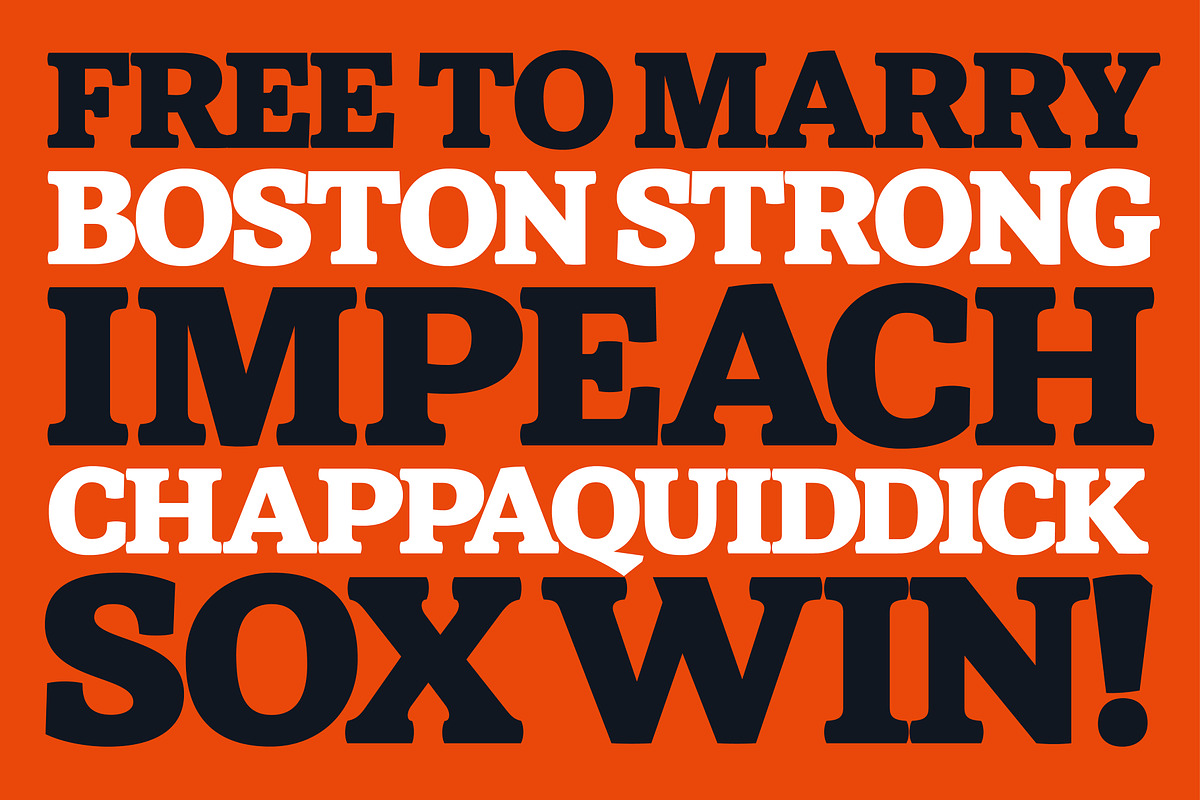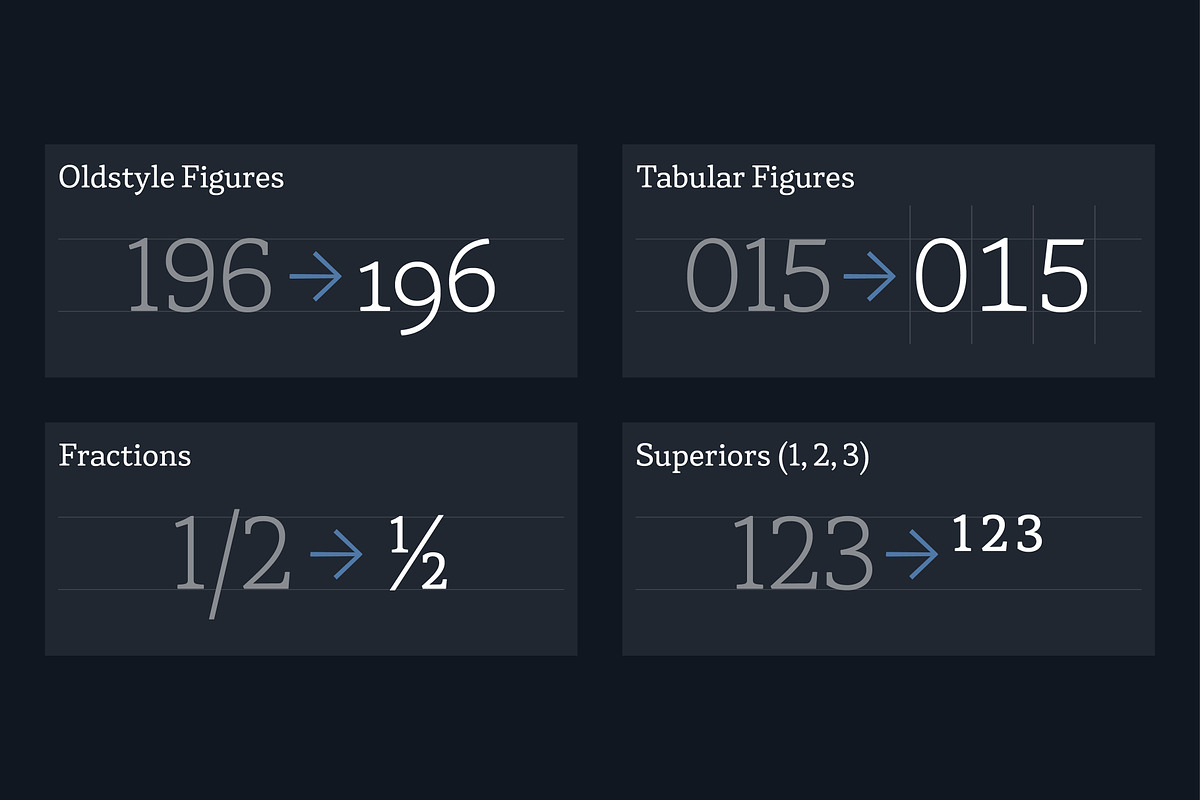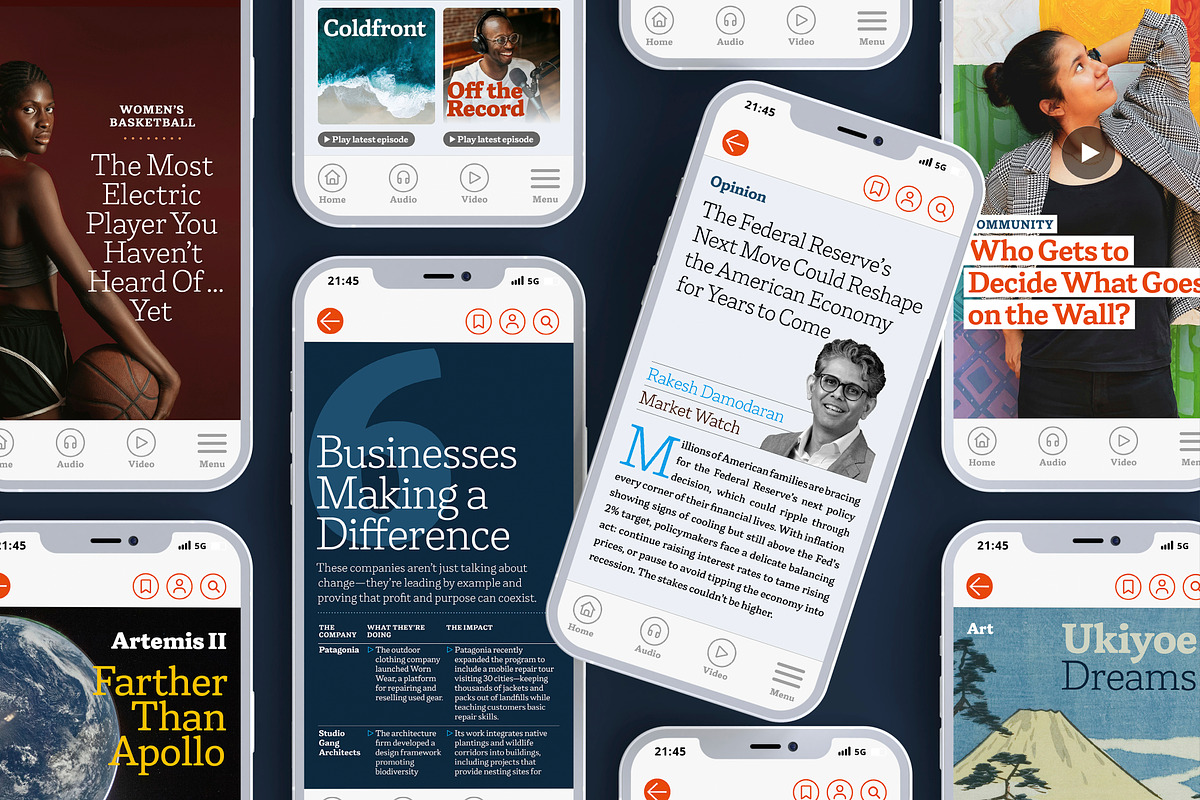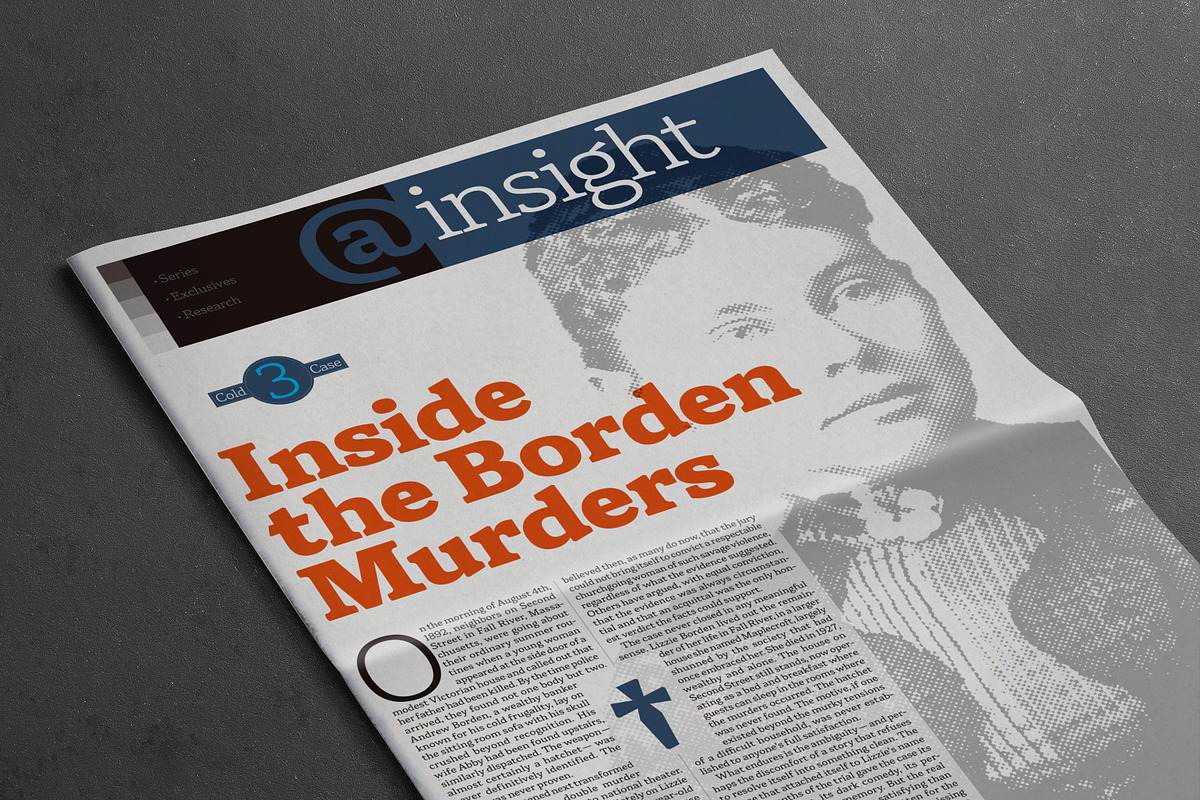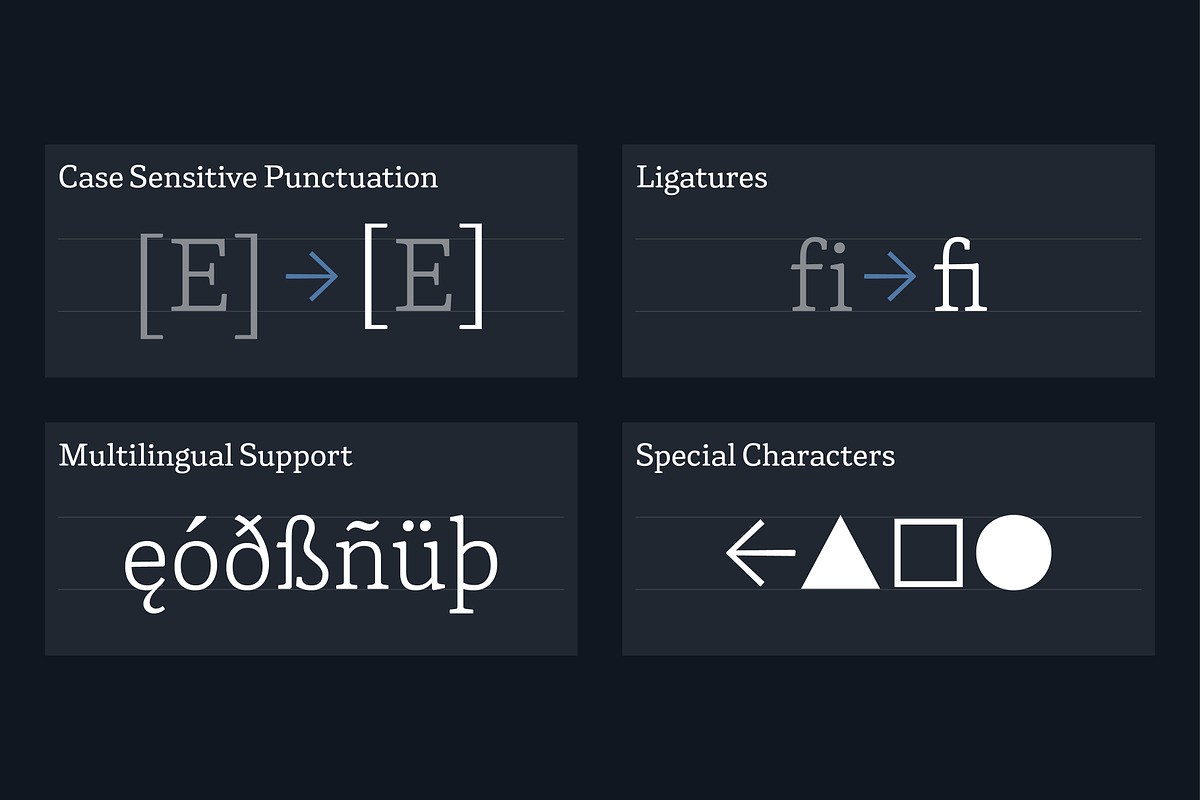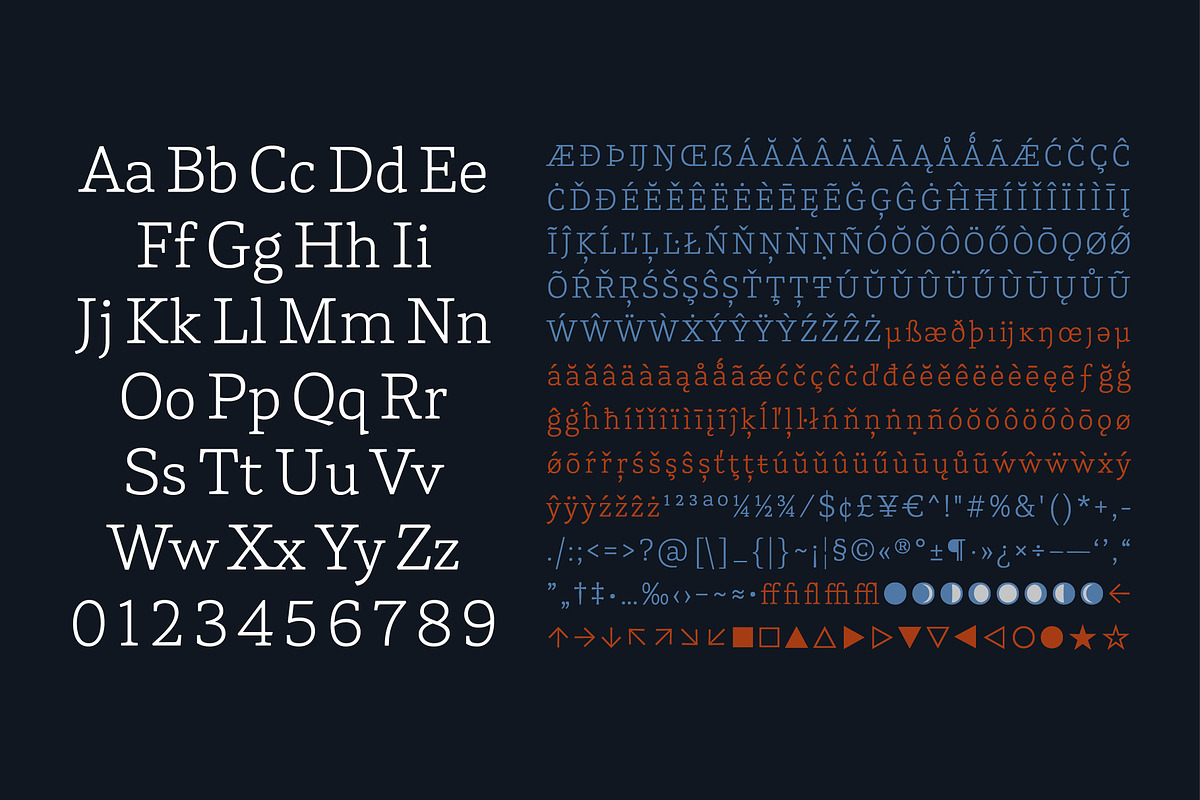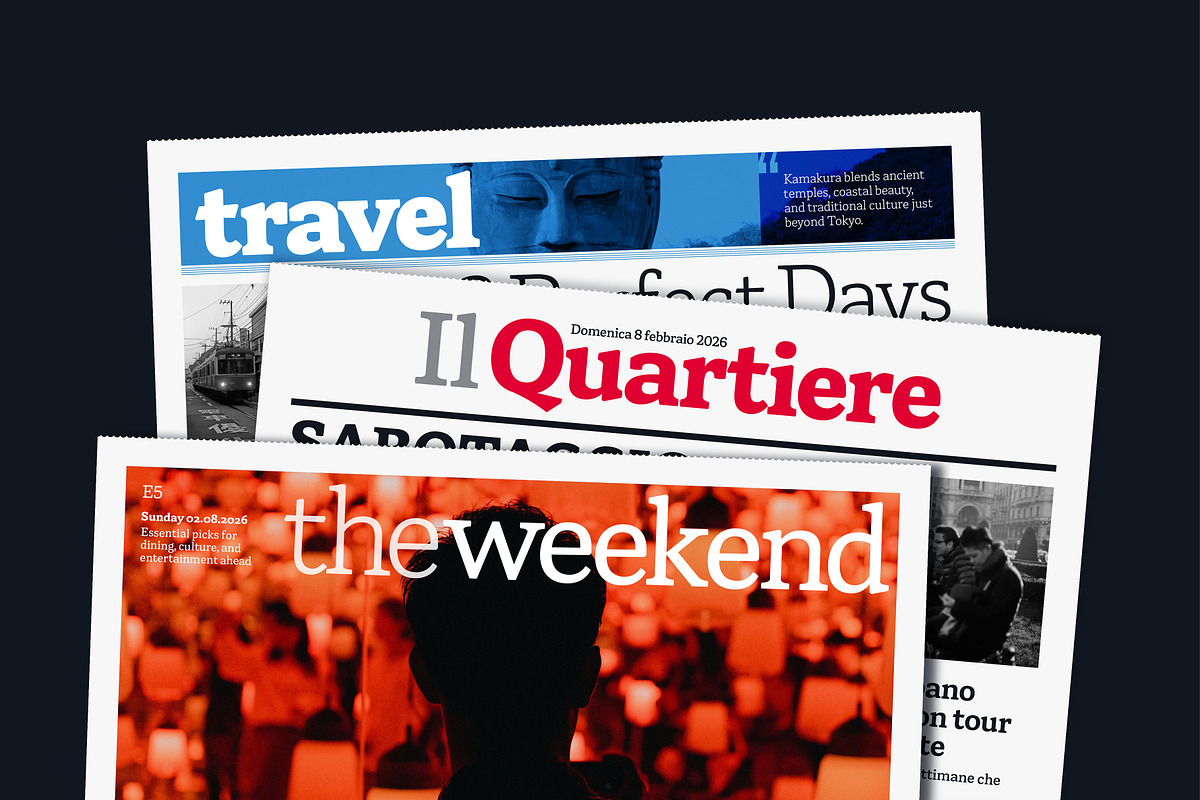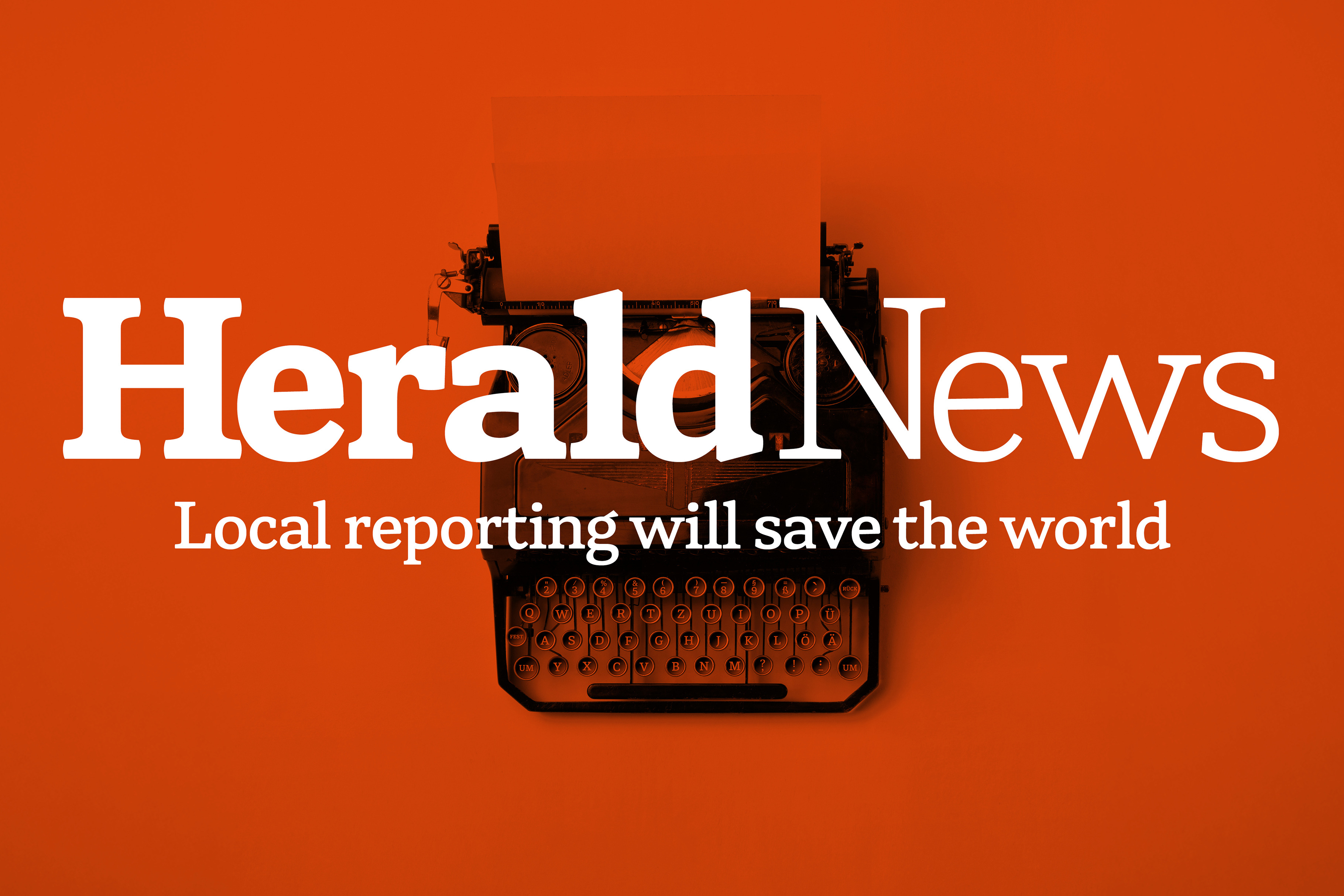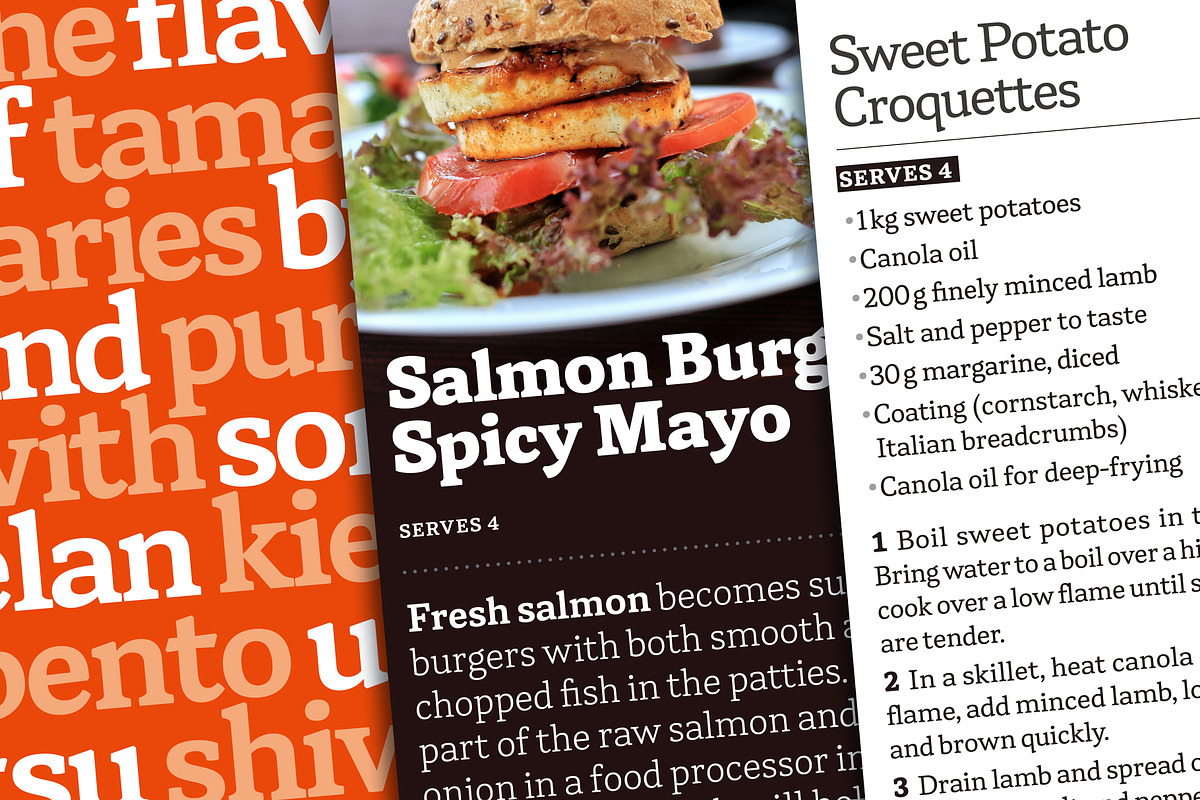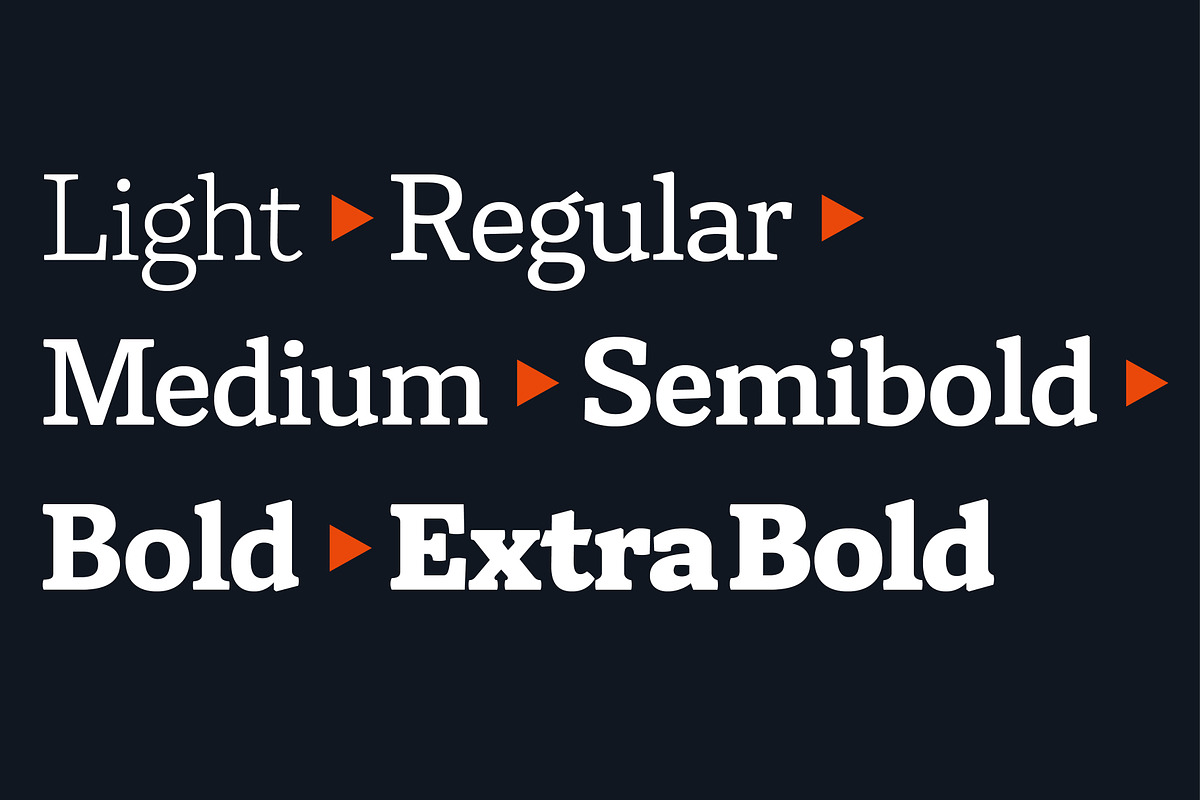
Herald News — Editorial Font
Inspired by local journalism, Herald News is a versatile serif text family crafted for editorial work. It strikes a balance between a serious tone suitable for hard-hitting stories and a warm feel for those that bring a smile.
The low-contrast design, featuring prominent serifs and rounded terminals, ensures excellent readability at small sizes while maintaining a commanding presence at display sizes. With six weights ranging from Light to Extra Bold, Herald News transitions seamlessly from body copy to striking front-page headlines.
This font family is equipped to handle any narrative demands. Its OpenType features enhance typographic precision, offering three figure styles, fractions, case-sensitive punctuation, and an extensive set of special characters tailored for the diverse needs of real publication work. Ideal for branding, web design, and editorial projects, Herald News combines functionality with aesthetic appeal, making it a reliable choice for any written content.